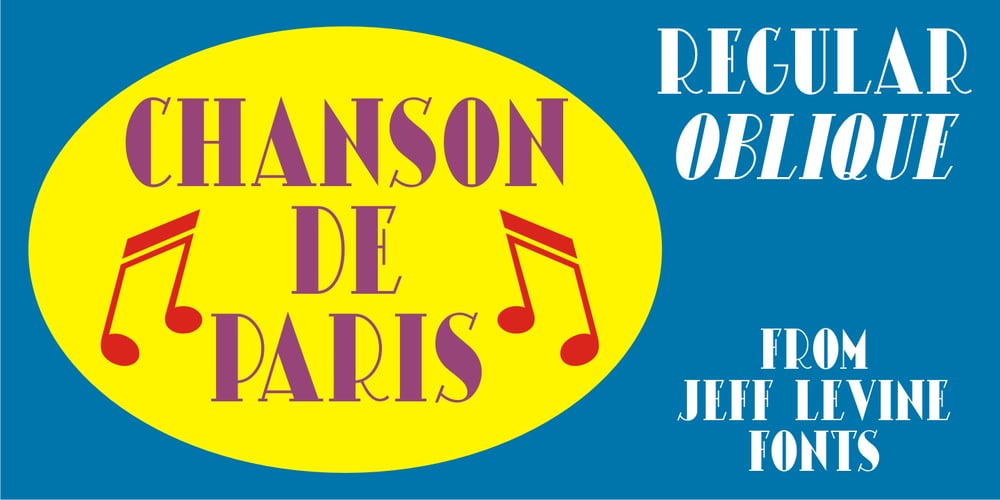
Chanson De Paris JNL
Chanson De Paris JNL font
Chanson De Paris JNL Font Family was designed by Jeff Levine and published by Jeff Levine. Chanson De Paris JNL contains 2 styles and family package options. A couple of pieces of sheet music from France [circa 1925] offered the inspiration for Chanson De Paris JNL (Song of Paris), which is available in both regular and oblique versions. This hand lettered Art Nouveau style features a unique take on thick-and-thin lettering which foreshadows the Art Deco typefaces to come during the 1930s.